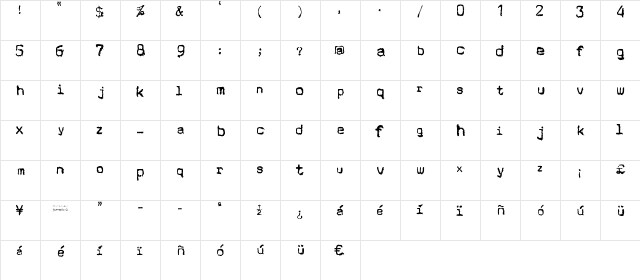
Cholo Sperry Rand R20 Micro
Design Context for Cholo Sperry Rand R20 Typeface
Cholo Sperry Rand R20 takes a measured approach to typography — its balanced proportions and neutral character make it a reliable workhorse for both digital and print work.